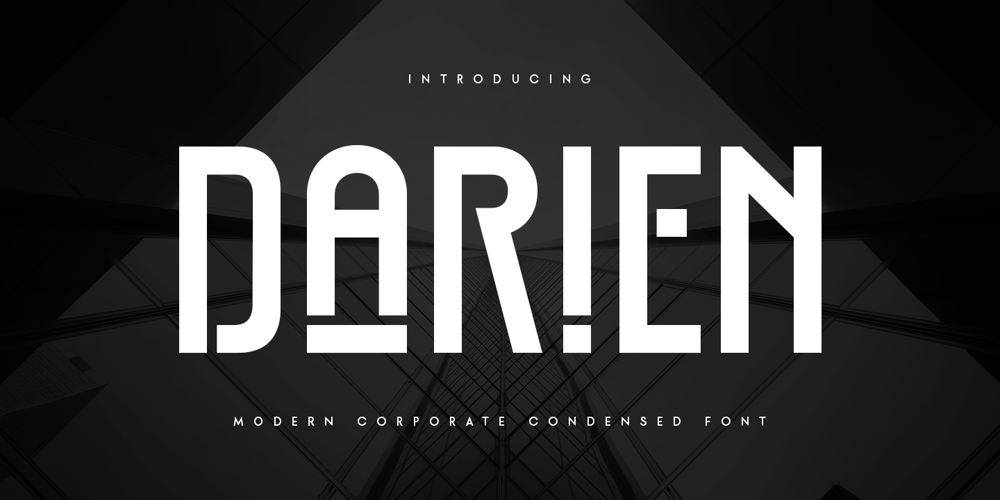
Darien
Darien font
Darien Font Family was designed by Zamroni Hamzah and published by Sensatype Studio. Darien contains 1 styles and family package options. A New Condensed Sans Serif font are prepared special for heading, title, and typography needs. It’s so perfect to add your style and headline overview. And specially for Headline font, we crafted for unique style and modern feels so enjoy to create any project that will show your main idea out.Darien Modern Condensed Sans Serif Font ready with: Any options to get creative variations Preview as a inspirations that you can do with Darien font Ready with All characters Wish you enjoy our font. ๐Ÿ™‚